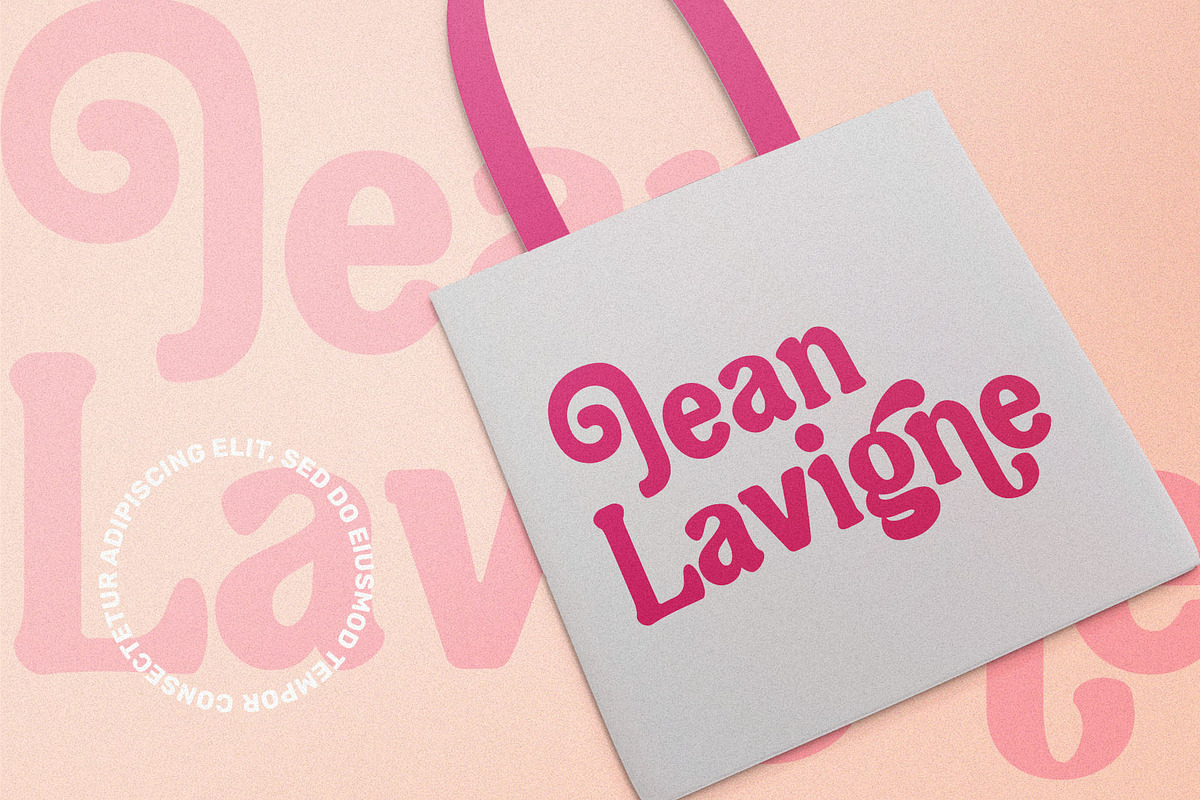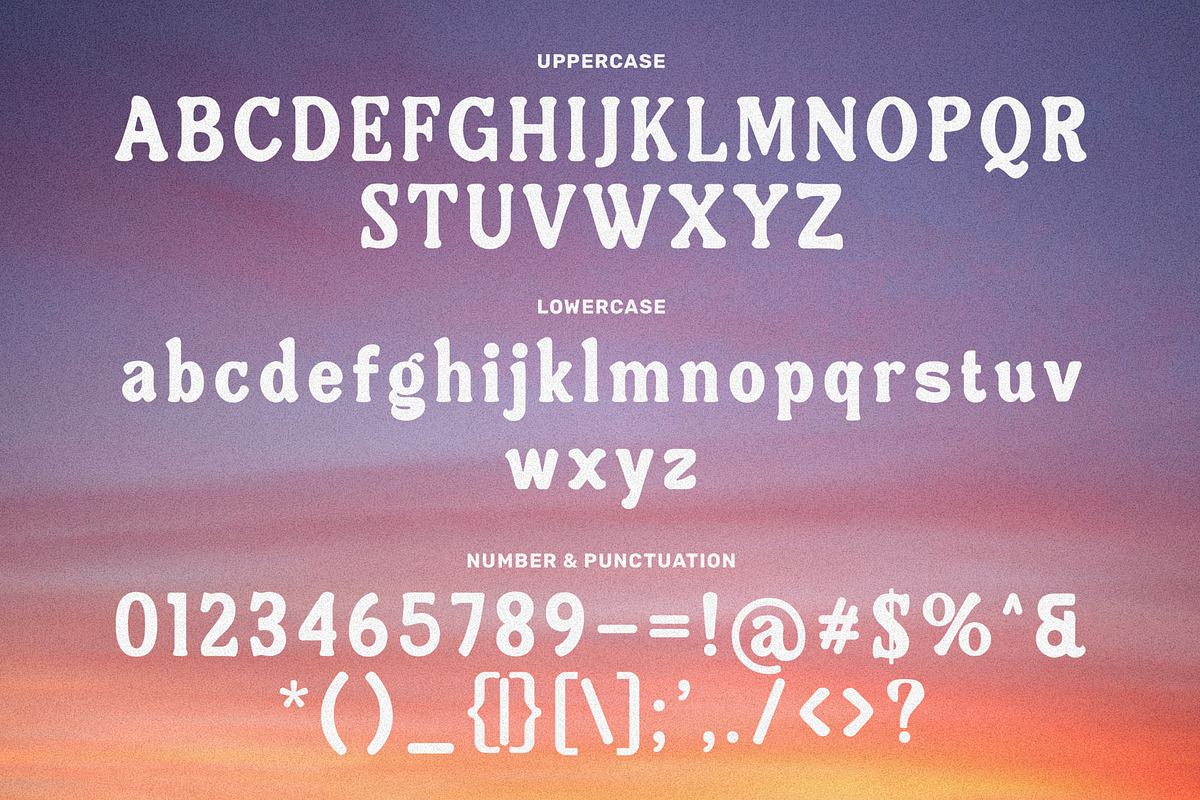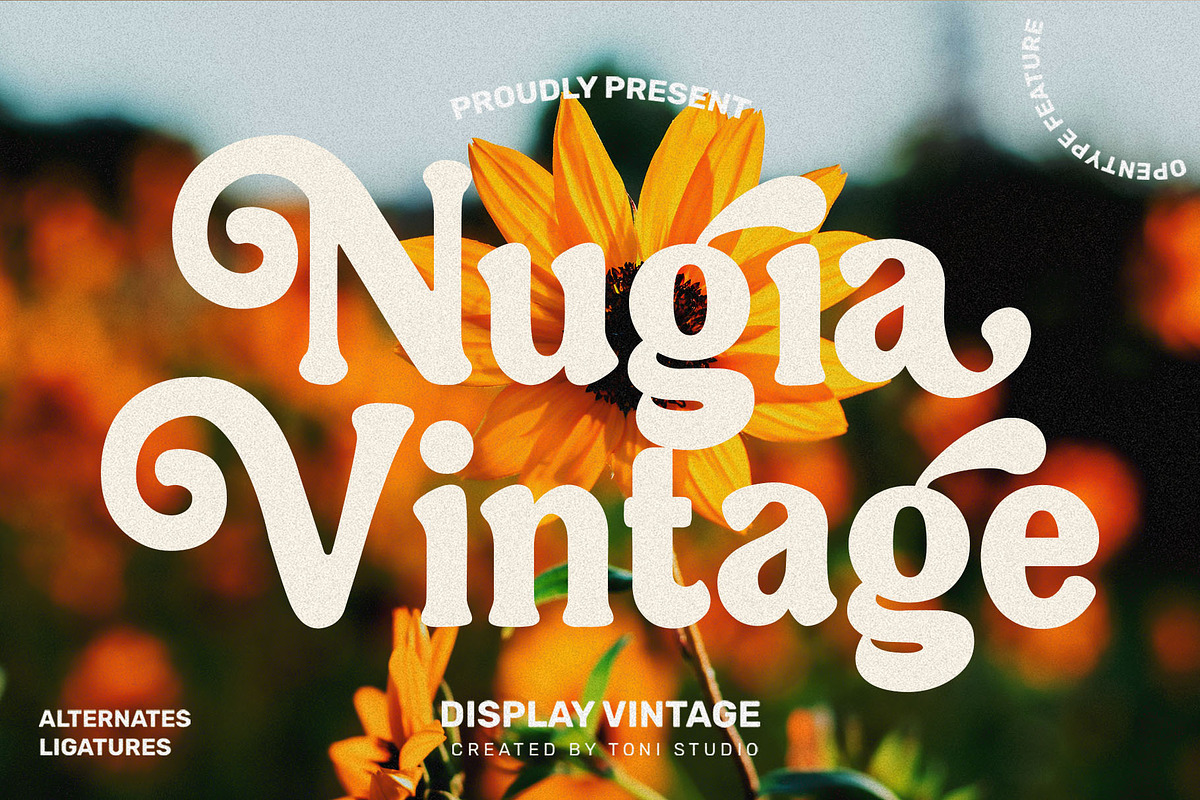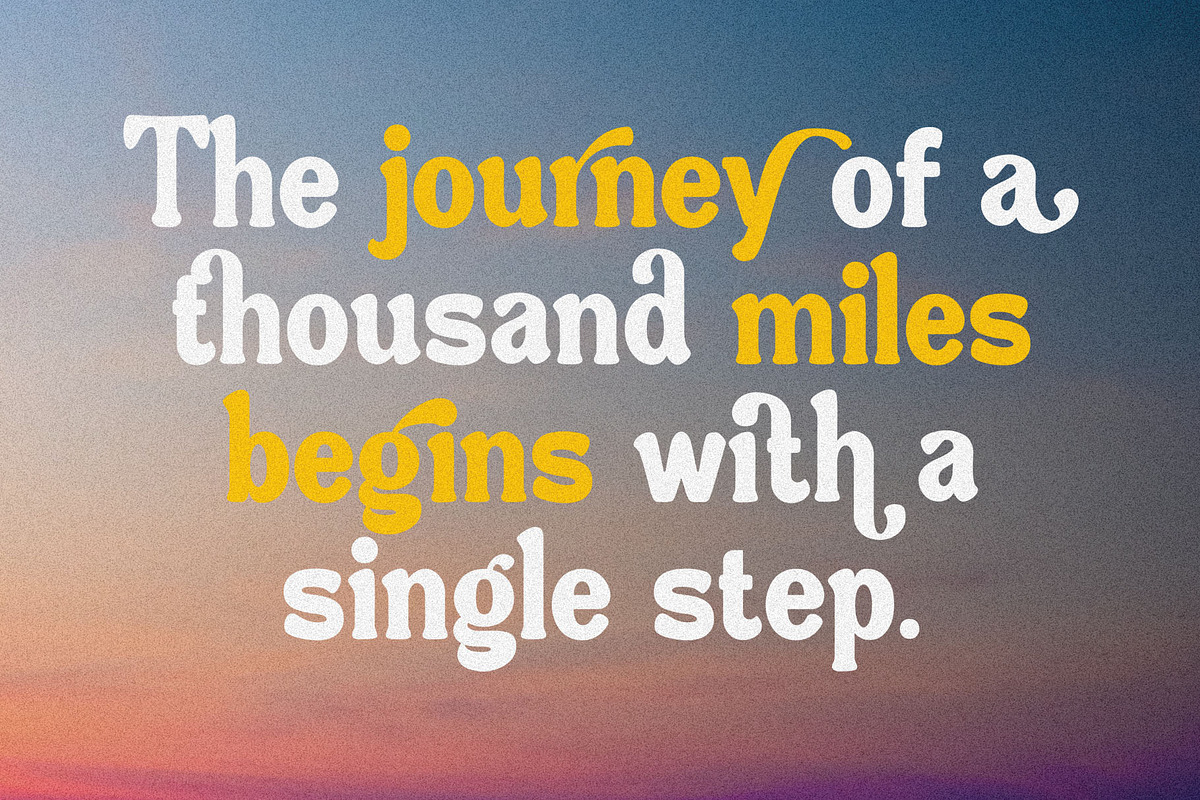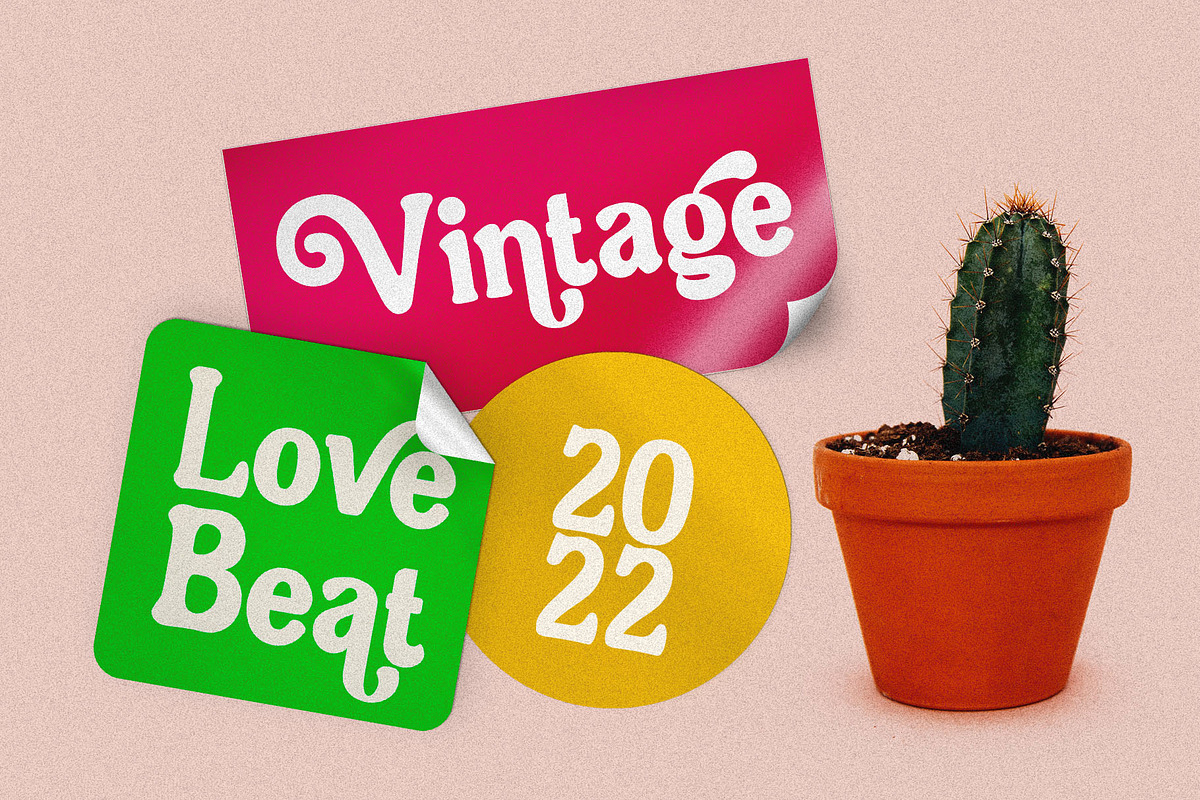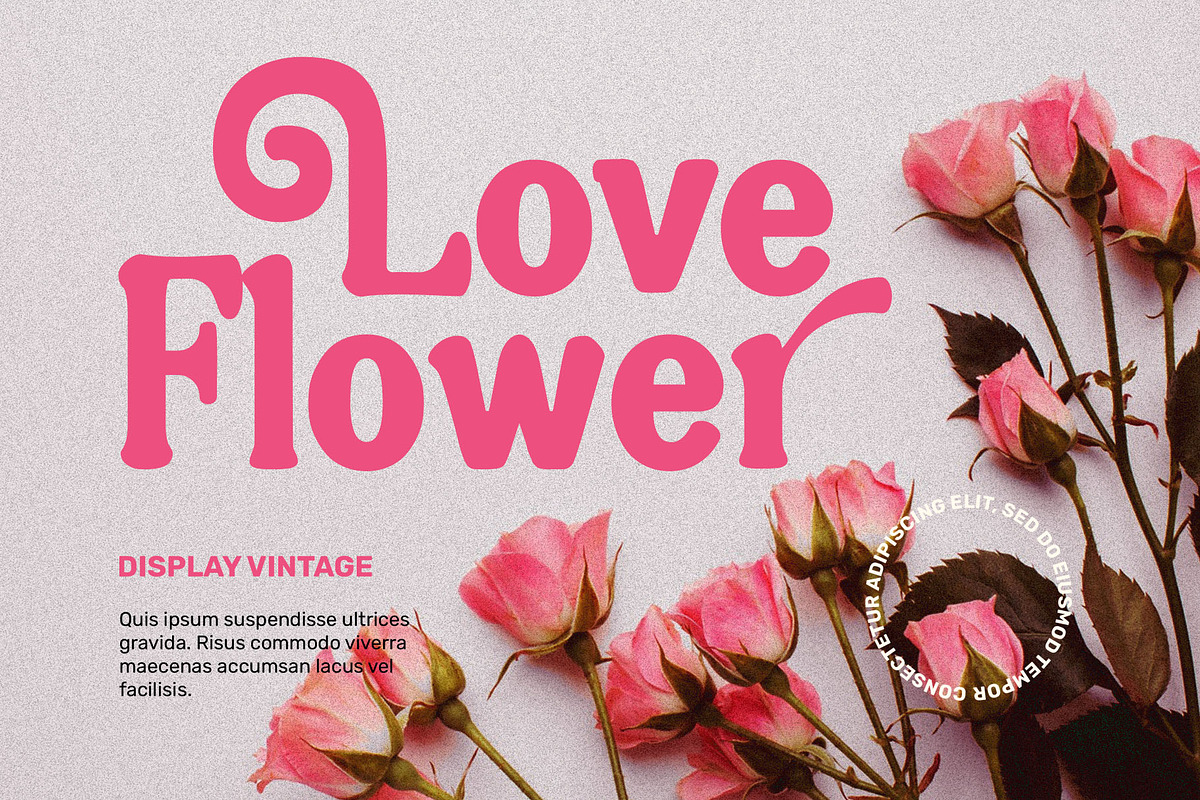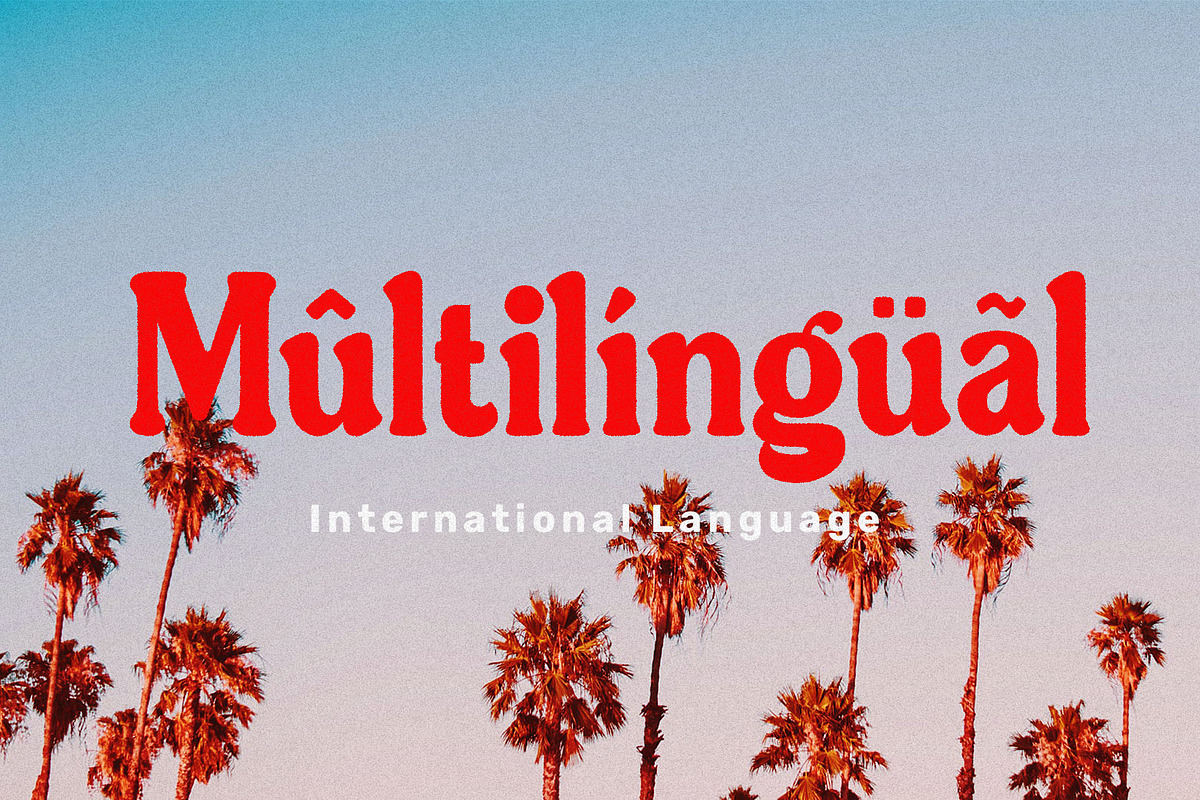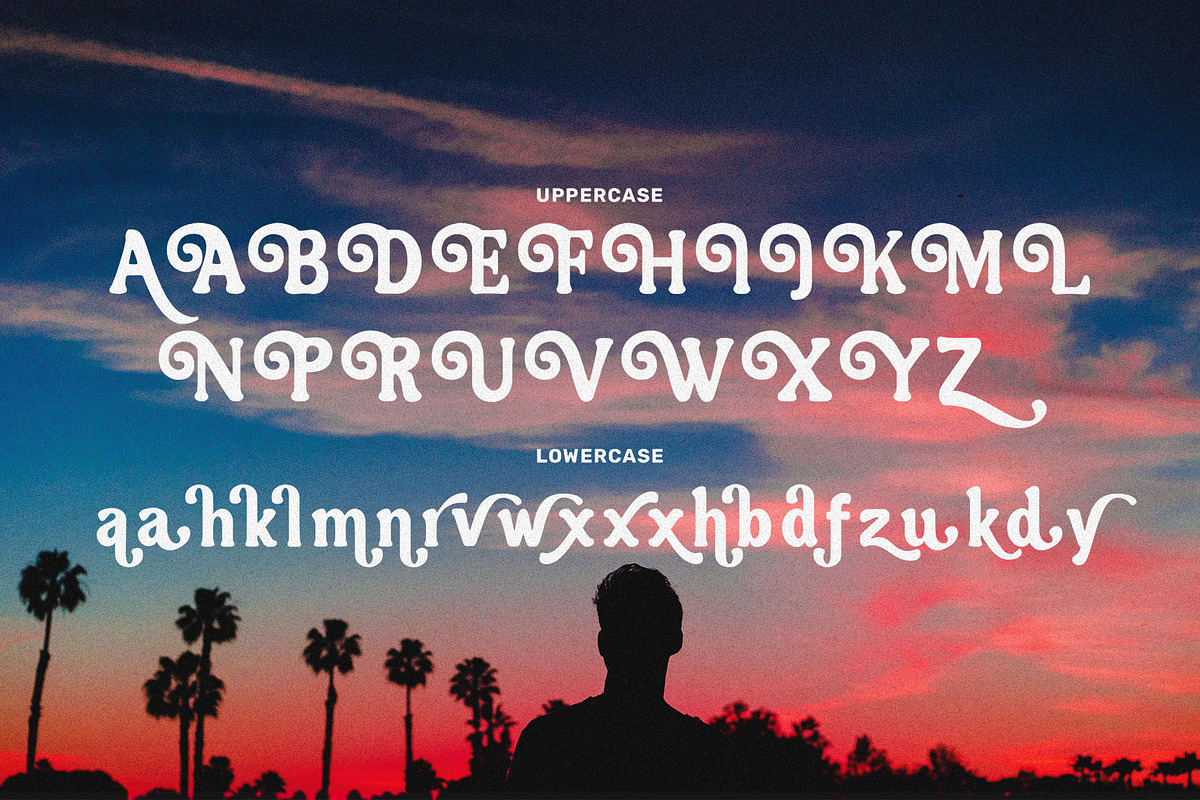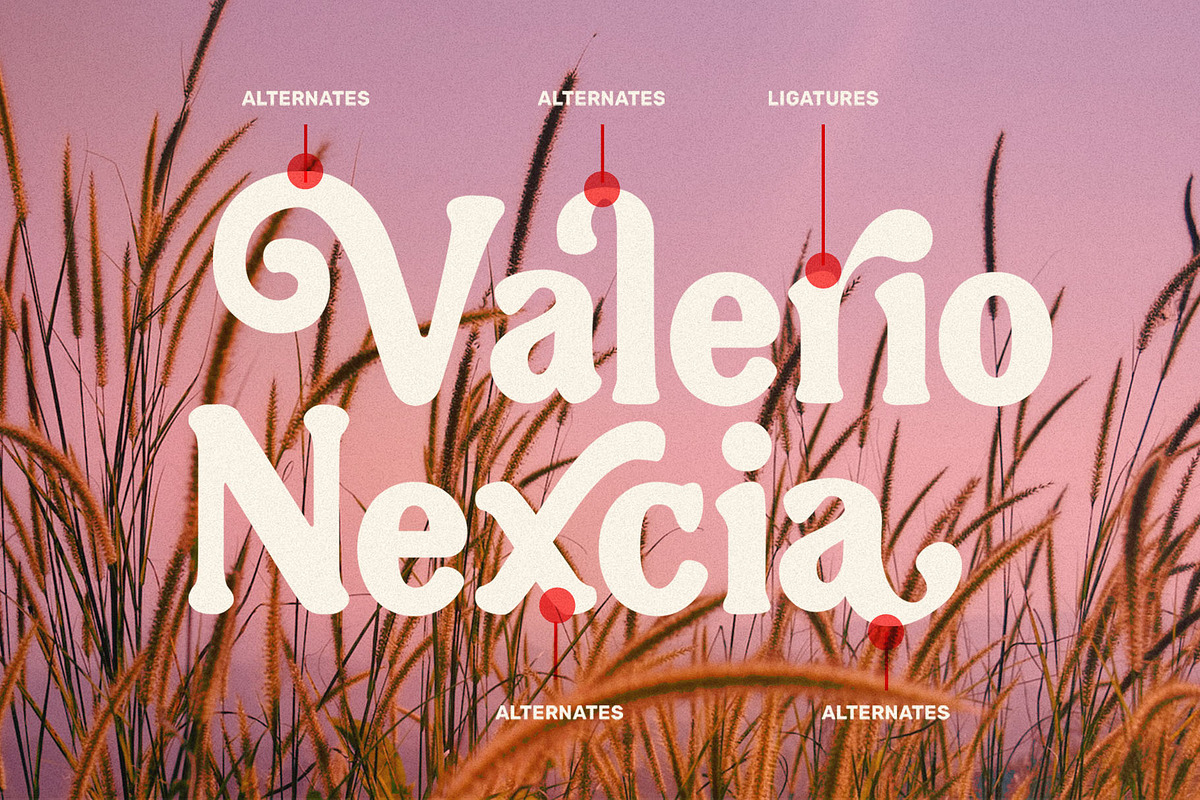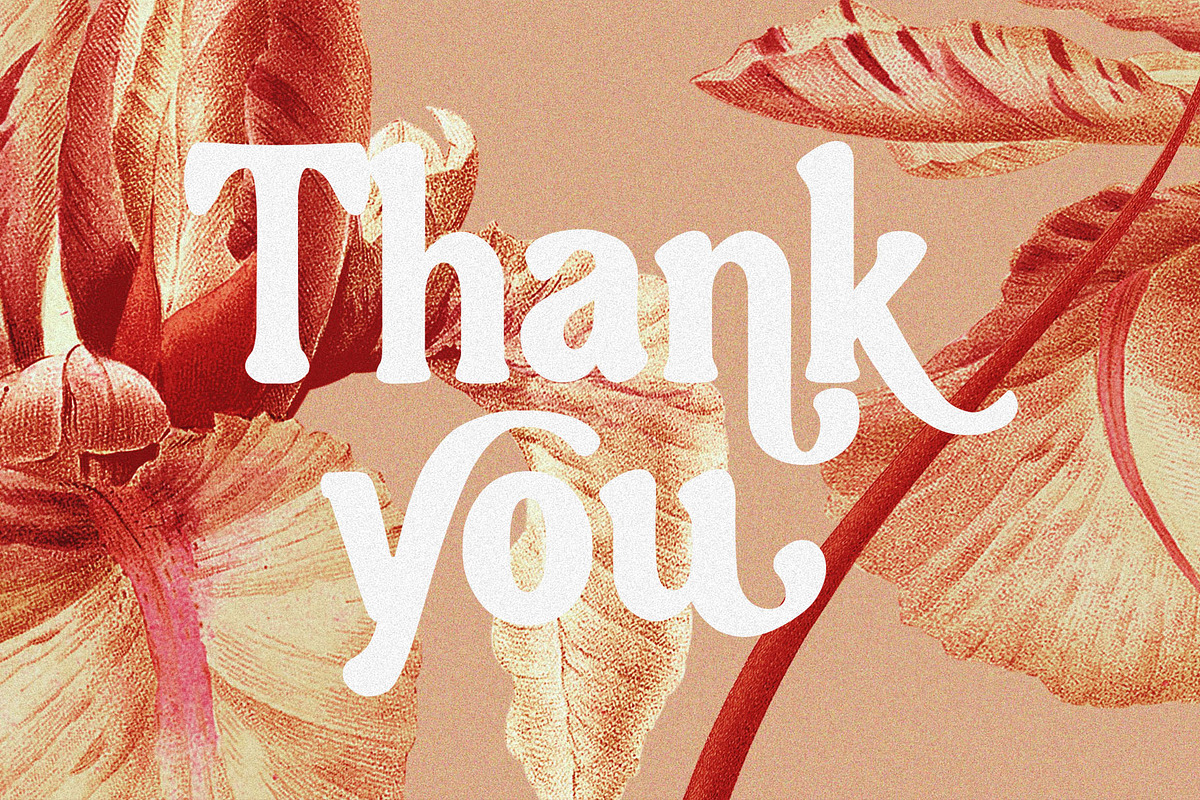
NugiaVintage
Nugia Vintage new retro serif is here! Nugia is a retro styled font with bold curves, it gives off a groovy '70s vibe with serifs that take it a bit back to the traditional. Nugia fits perfectly into that nostalgic mood board and vintage logo. It comes with both lowercase and uppercase letters plus unique multilingual numbers, punctuation & letters. Thank you so much for checking out my shop, and please get in touch if you have any questions! Fatoninurman1995@gmail.com